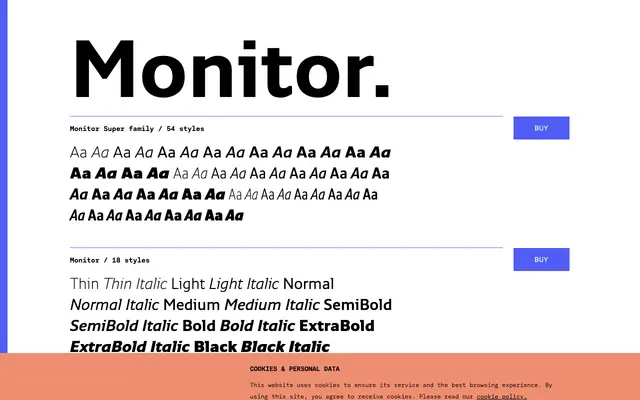
Monitor
A 54-style grotesque superfamily from TYPE BY spanning three widths and nine weights, each with matching italics.
Spread across standard, SemiCondensed and Condensed widths, Monitor offers nine weights from Thin to ExtraBlack with italic companions throughout, giving designers 54 styles in total. OpenType features include small capitals, oldstyle figures, tabular figures, fractions and a slashed zero, making it a practical choice for complex typographic systems. The range of widths and the density of the weight scale suit editorial, branding and display work where flexibility across a single family is required.
Monitor presents as a contemporary grotesque sans-serif with a wide weight range and multiple width variants, consistent with the grotesque tradition of workhorse extended families built for demanding typographic systems.